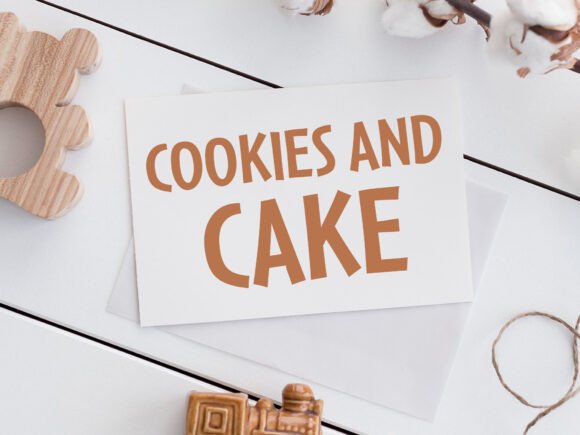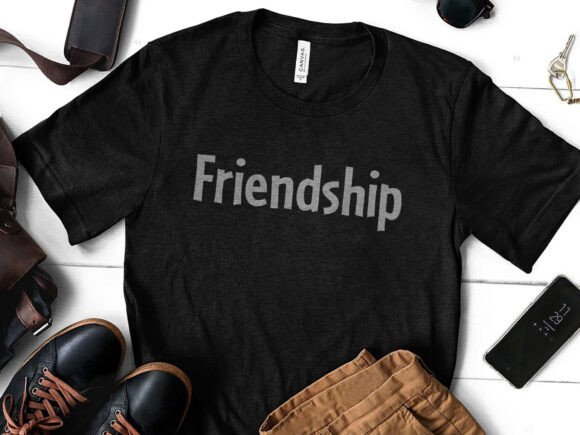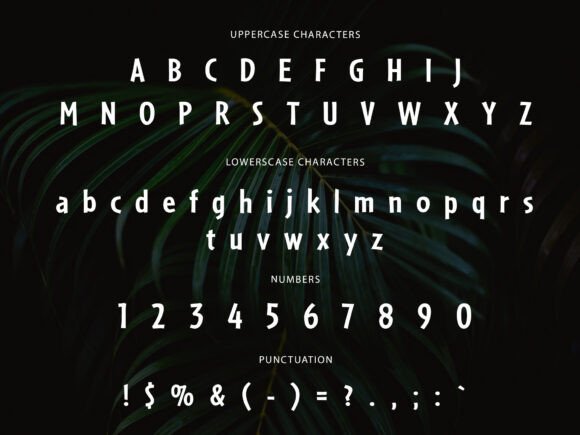
Introducing Greatmoon Font: The Perfect Blend of Masculinity and Warmth
In the world of typography, finding the right font for your project can be a daunting task. You want something that makes a statement, yet also conveys a sense of approachability and warmth. Look no further than Greatmoon Font, a sans serif font designed to bring a blend of masculinity and gentleness to your designs. In this article, we’ll explore the features and benefits of Greatmoon Font, and why it’s the perfect choice for projects that require a strong yet inviting presence.
The Characteristics of Greatmoon Font
Greatmoon Font is a sans serif font, characterized by its clean lines, simple shapes, and lack of decorative flourishes. This makes it an excellent choice for projects that require a modern and sleek look, such as rugged branding, outdoor adventure materials, and strong yet inviting headlines. The font’s substantial size ensures visibility and impact, making it perfect for titles, headings, and other display text.
But what sets Greatmoon Font apart from other sans serif fonts is its nuanced design elements. While it’s certainly a bold and masculine font, it’s also designed to provide a welcoming, human touch. The font’s subtle rounded edges and carefully crafted letterforms give it a sense of warmth and approachability, making it perfect for projects that require a touch of gentleness.
The Benefits of Using Greatmoon Font
So why choose Greatmoon Font for your next project? Here are just a few benefits of using this versatile and powerful font:
- Versatility: Greatmoon Font is perfect for a wide range of projects, from rugged branding and outdoor adventure materials to strong yet inviting headlines and titles.
- Impact: The font’s substantial size and bold design ensure that your message will be seen and remembered.
- Warmth: Greatmoon Font’s nuanced design elements provide a welcoming, human touch that sets it apart from other sans serif fonts.
- Legibility: The font’s simple shapes and clean lines make it easy to read, even at smaller sizes.
Who is Greatmoon Font for?
Greatmoon Font is perfect for designers, crafters, and marketers who want to create a powerful presence with a touch of gentleness. Whether you’re working on a branding project, creating outdoor adventure materials, or designing a website or social media graphics, Greatmoon Font is an excellent choice.
Some examples of projects that Greatmoon Font would be well-suited for include:
- Rugged branding and packaging for outdoor gear and apparel companies
- Outdoor adventure materials, such as hiking trail signs and park brochures
- Strong yet inviting headlines and titles for websites, social media graphics, and advertising campaigns
- Labels and signage for craft breweries, coffee shops, and other businesses that want to convey a sense of warmth and approachability
| Font Name | Greatmoon Font |
| Author | Magizta Craft |
Greatmoon Font is a powerful and versatile sans serif font that’s perfect for projects that require a blend of masculinity and warmth. With its substantial size, nuanced design elements, and clean lines, Greatmoon Font is an excellent choice for designers, crafters, and marketers who want to create a strong yet inviting presence. Whether you’re working on a branding project, creating outdoor adventure materials, or designing a website or social media graphics, Greatmoon Font is sure to make a lasting impression.